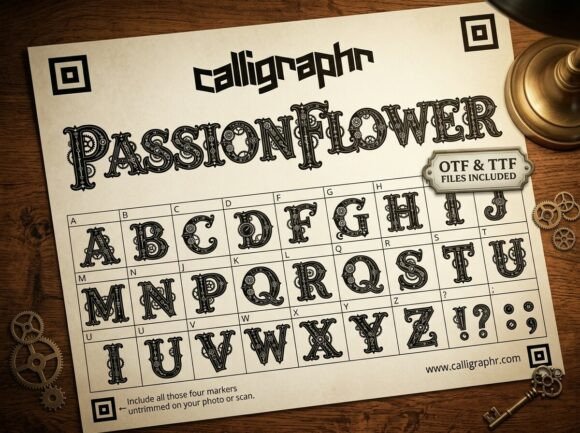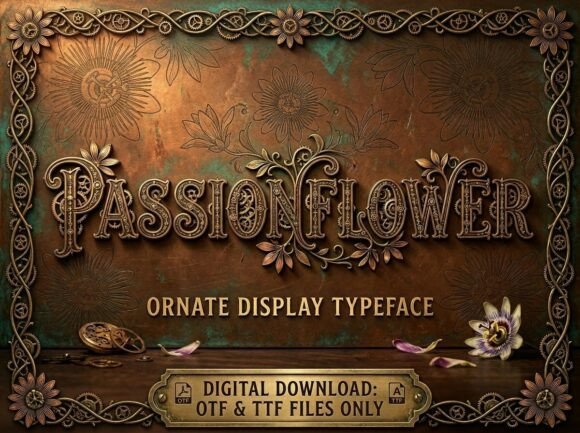
Introduction to Passion Flower Font
You’ve spent hours pouring over your design project, and finally, the perfect idea strikes. The concept is innovative, the colors are vibrant, and the message is clear. But, there’s one crucial element that can make or break your masterpiece: the font. This is where Passion Flower Font comes into play – a game-changing, high-quality design resource that can elevate your creative project to new heights.
As a designer, you understand the importance of choosing the right font to convey your message. Passion Flower Font is more than just a font – it’s a statement piece that adds an air of sophistication and industrial depth to your design. With its ornate, vintage structure, this font is perfect for steampunk-themed branding, escape room signage, and alternative history game interfaces.
Key Features of Passion Flower Font
- Features a large character set, including uppercase and lowercase letters, numbers, and special characters.
- Perfect for use in logo design, typography, and other creative projects where a touch of elegance is required.
Honest Review: Passion Flower Font
I recently stumbled upon the Passion Flower Font, and I’m excited to share my thoughts on this design resource. As a designer, I’m always on the lookout for high-quality fonts that can elevate my creative projects.
The Passion Flower Font is a beautiful, hand-drawn font that exudes a sense of whimsy and elegance. I love how the font’s intricate details and flowing lines make it perfect for titles, headings, and other design elements where you want to add a touch of personality.
- ⚠️ Limited character set, which may be a limitation for some designers
- ⚠️ May not be suitable for body text due to its ornate design
Overall, I’m impressed with the Passion Flower Font. It’s a beautiful design resource that’s perfect for adding a touch of personality to your creative projects. While it has some limitations, I think it’s definitely worth checking out for designers who are looking for a high-quality, unique font.
Tips for Getting the Most Out of Passion Flower Font
Use Passion Flower Font for creative projects such as wedding invitations, greeting cards, or posters. You can also use it for branding and logo design. Experiment with different font sizes, colors, and styles to get the most out of this high-quality design resource.
Passion Flower Font is commonly used for creative projects such as:
- Greeting cards
- Posters